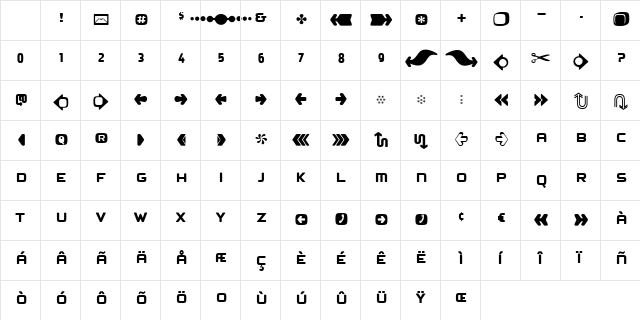
Complete Mayo Regular glyph index. Displaying only characters natively supported by Mayo Regular font.
Mayo is a composed and adaptable typeface that performs quietly and consistently across a wide range of design contexts.
Pro Tip: Use Mayo in both headline and body roles to test its range before committing to a single application.